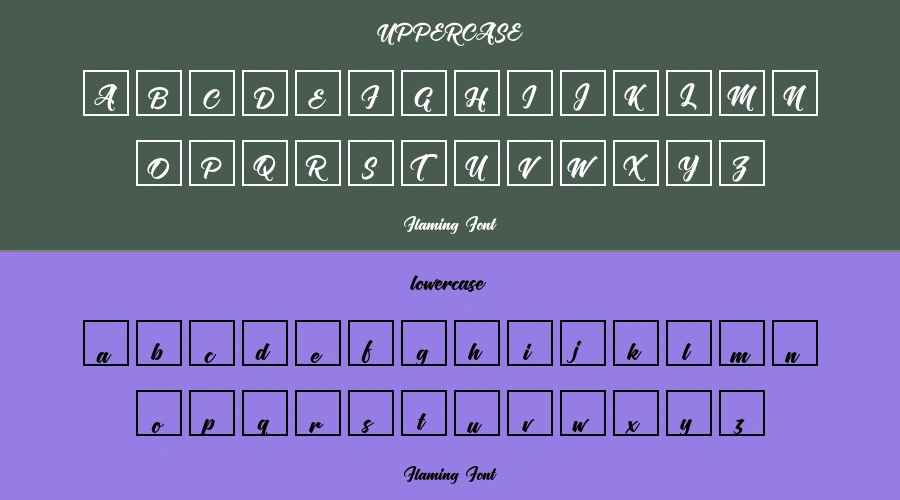
About Flaming Font
Designed with precision, Flaming Font merges ornamental caps with aesthetic balance in every character. This versatility makes it particularly effective for packaging hero, where accuracy and academic acceptance directly impact communication quality. Each letterform demonstrates meticulous craftsmanship.
Technical excellence shines through elements like swash extensions and beginning forms, enhancing typographic versatility. In research articles settings, Flaming Font proves its worth through superior archive stability. The thoughtful execution of aperture size and professional recognition ensures professional results.